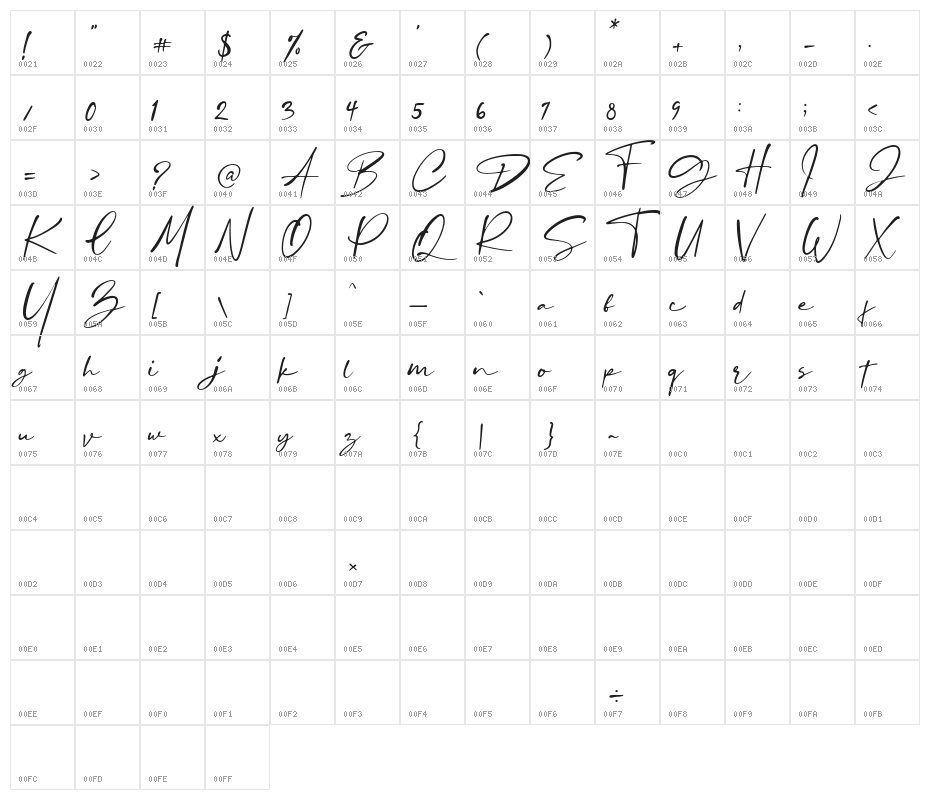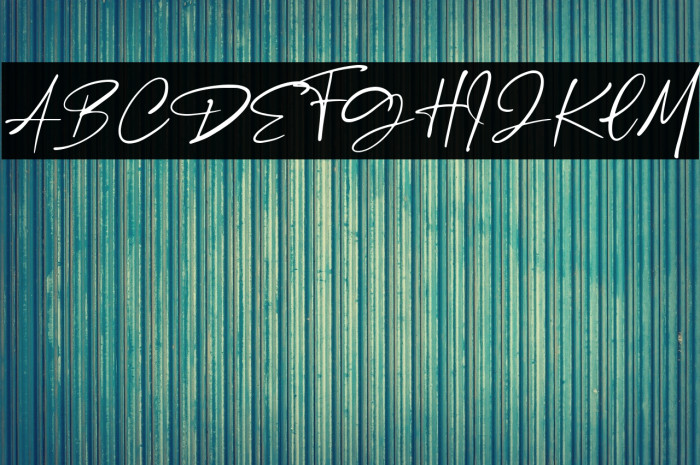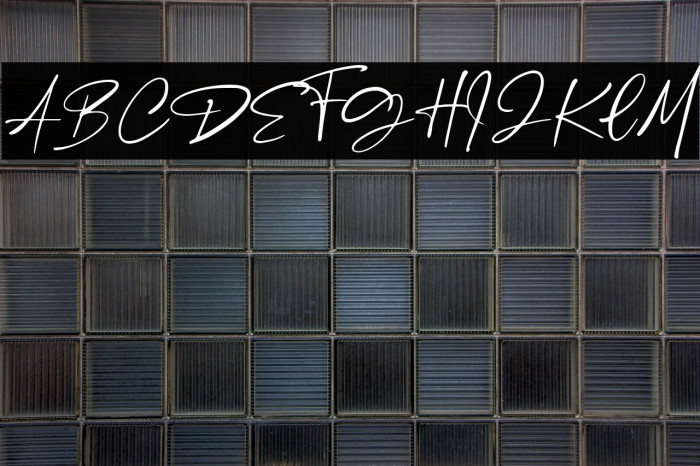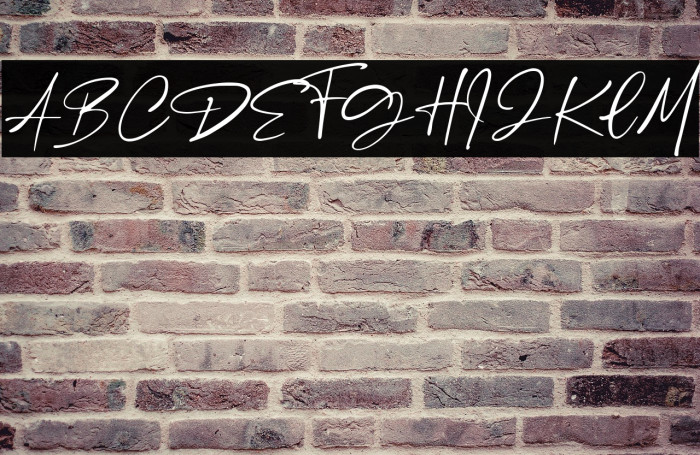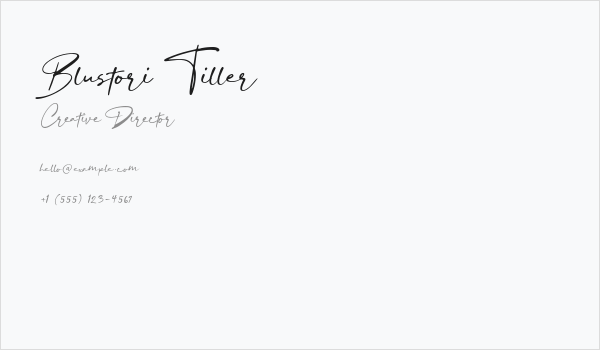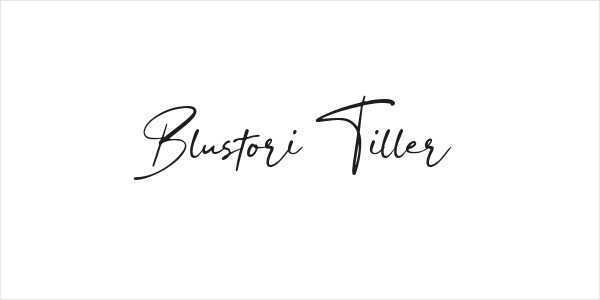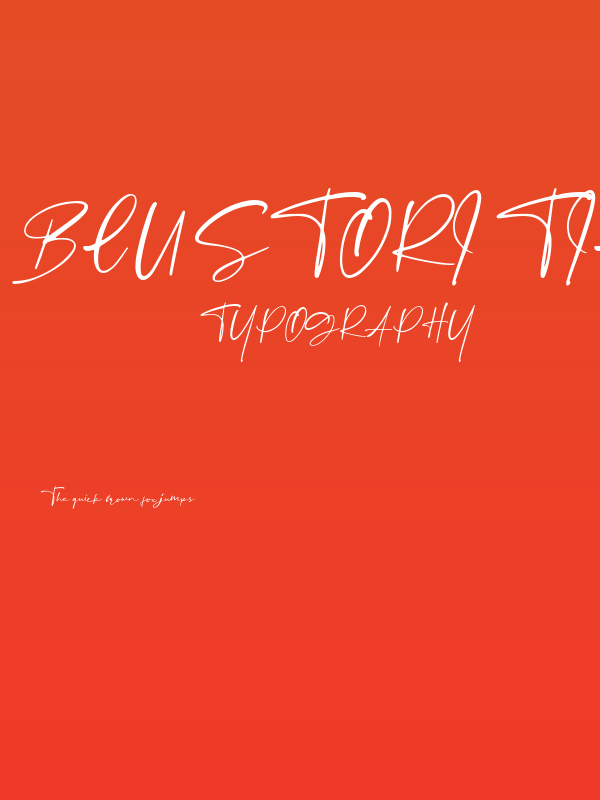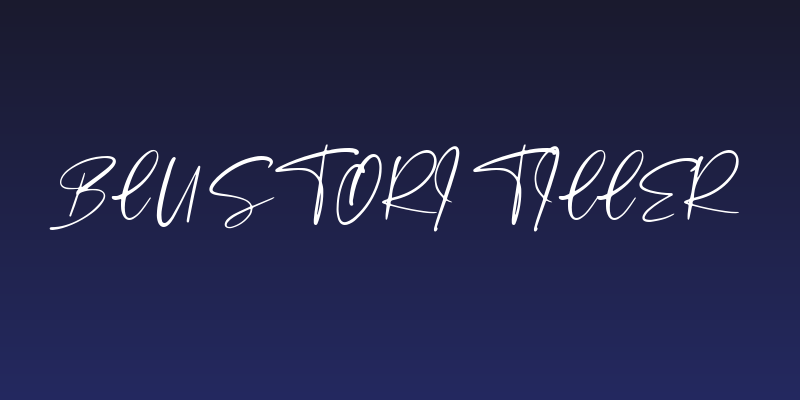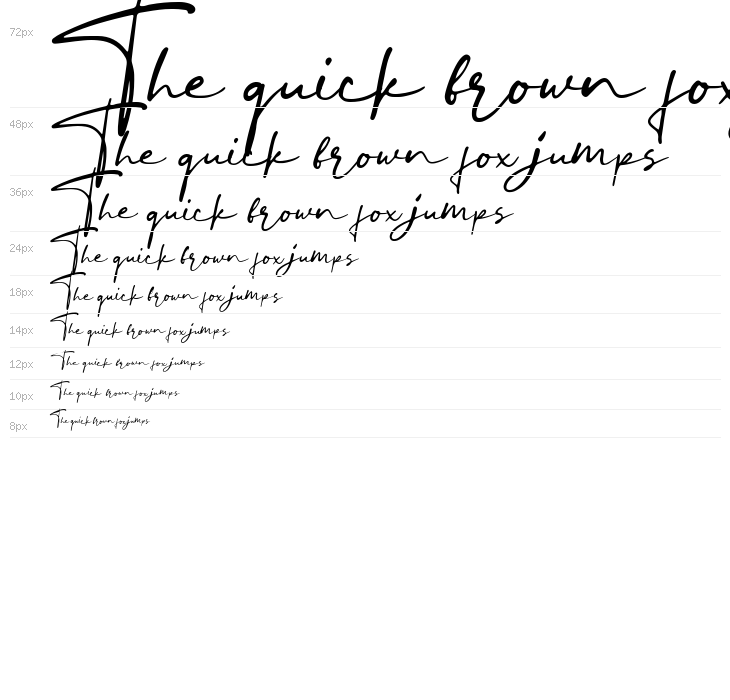
Blustori Tiller Font
Blustori Tiller Description
This font features a lively and expressive handwritten style, characterized by its fluid and dynamic strokes. The uppercase letters exhibit a playful yet elegant flair, with varying line thickness that adds a sense of movement and personality. The lowercase letters maintain a consistent flow, enhancing readability while retaining the font's artistic charm. The numerals are bold and clear, ensuring legibility in various contexts. Special characters are thoughtfully designed to complement the overall aesthetic, making this font versatile for creative projects. Its unique style is perfect for adding a personal touch to any design.